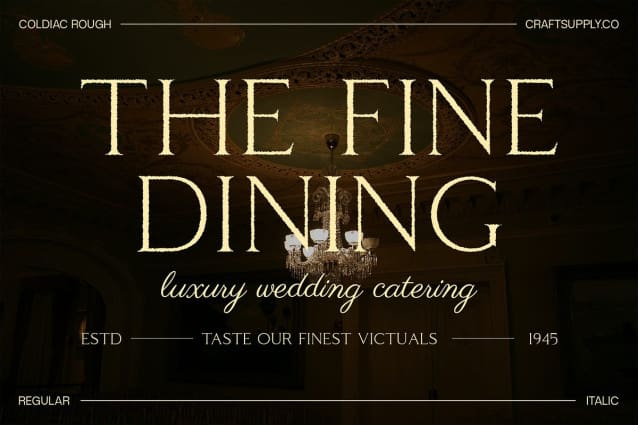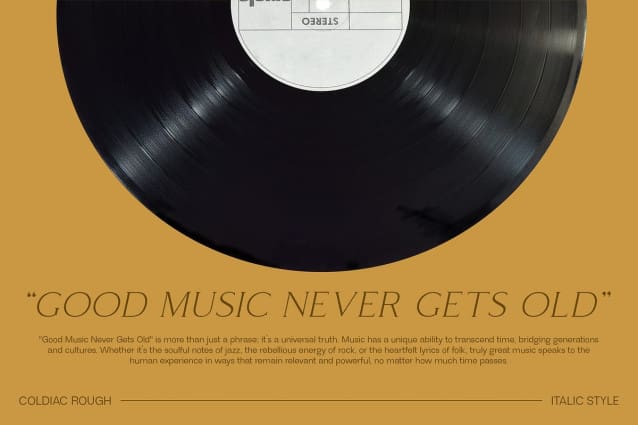
Coldiac Rough Font
Coldiac Rough Font is a modern serif font that combines sleek, contemporary lines with a sophisticated rough effect. Its slim and elegant design delivers a high level of style and refinement, making it perfect for high-end branding and luxury editorial layouts.
Elegant with a Unique Touch Embrace the balance of elegance and distinctiveness with Coldiac Rough. The font’s refined lines exude sophistication, while the rough texture introduces a unique, stylish touch. This blend creates a visually appealing contrast that enhances the font’s modern and elegant character.
Versatile for Premium Projects Coldiac Rough is ideal for a range of stylish and upscale applications. Whether you’re designing luxury promotional materials, high-impact editorial layouts, or premium branding, its combination of modern sophistication and functional versatility ensures a striking and effective presentation.
Elevate Your Design Bring a refined, contemporary edge to your projects with Coldiac Rough. Its sleek serif style and distinctive rough texture provide a perfect blend of sophistication and uniqueness, making it a valuable asset for any high-end or stylish design endeavor.